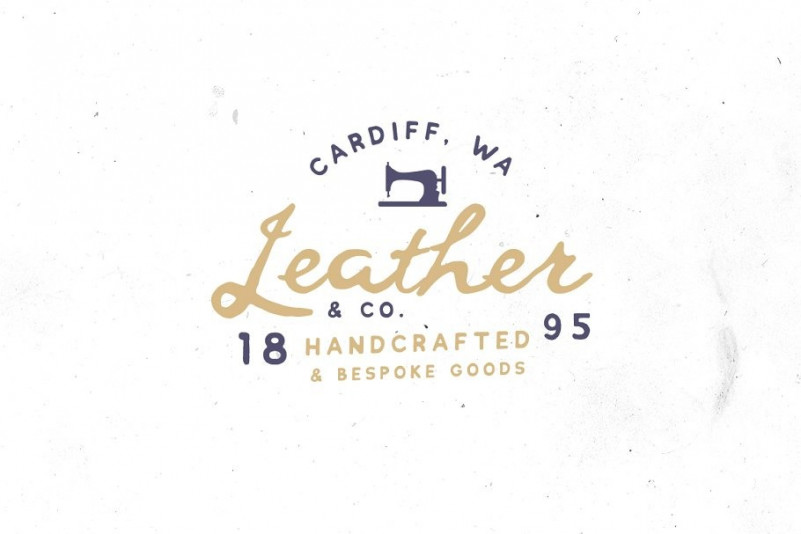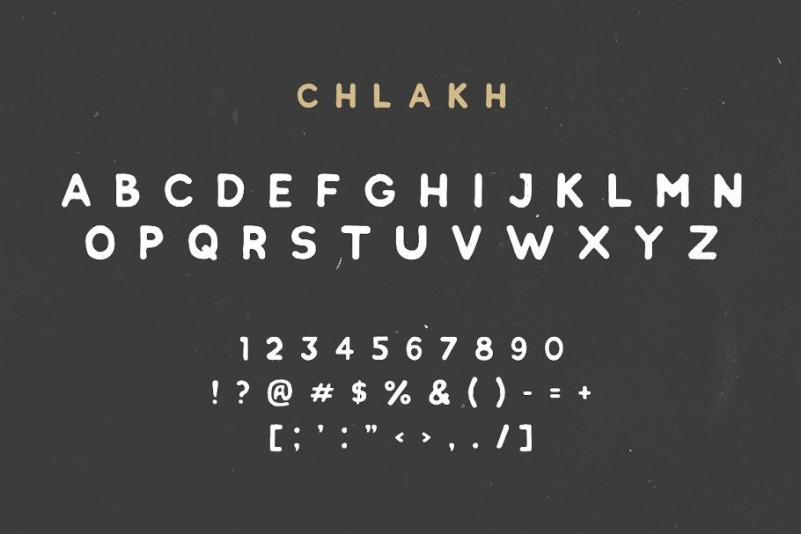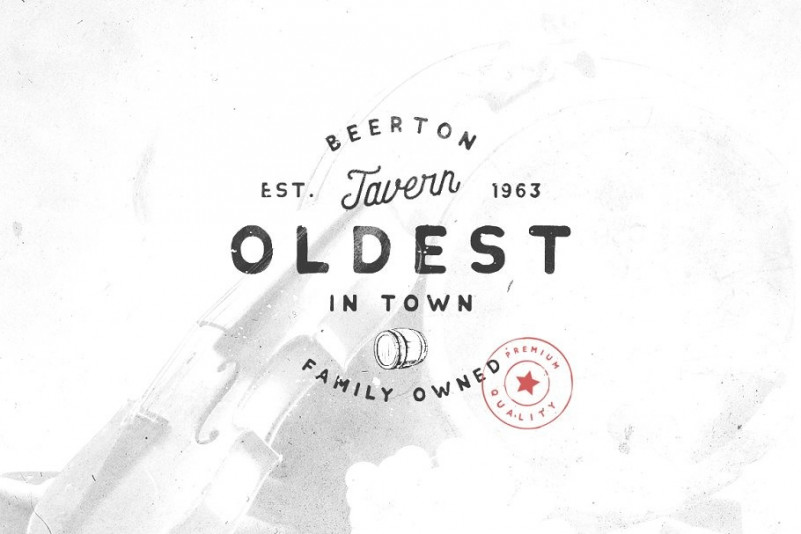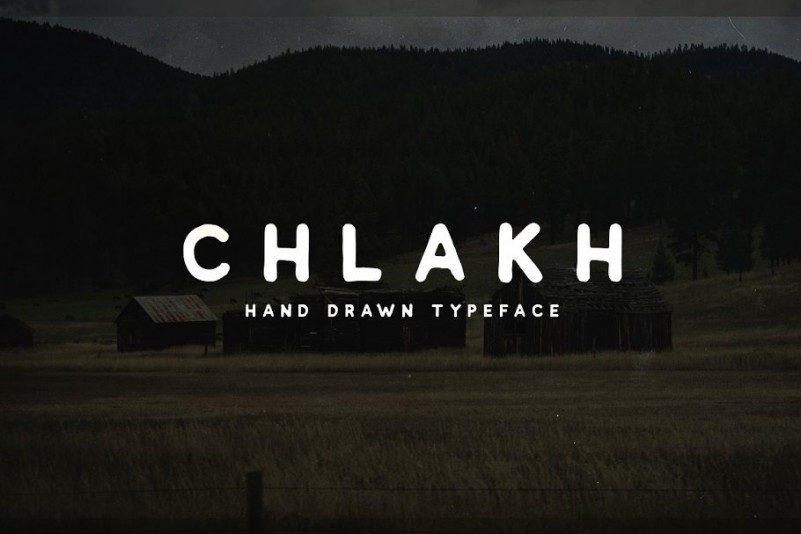
Chlakh – Hand Drawn Font
This is vintage retro font with unique glyph combination to create fresh look on your project. It’s designed and shared by Roman Paslavsky. Introducing Chlakh Font! This font is a wonderful complement to vintage goods in my shop. That is why it is perfect for creating retro logos, badges, labels. However, the use of this font is not limited to just logos. It’s also suitable for t-shirt prints, food packaging, business cards, flyers, posters, ads, restaurant menus, signs, typography design, quotes and any graphic design.